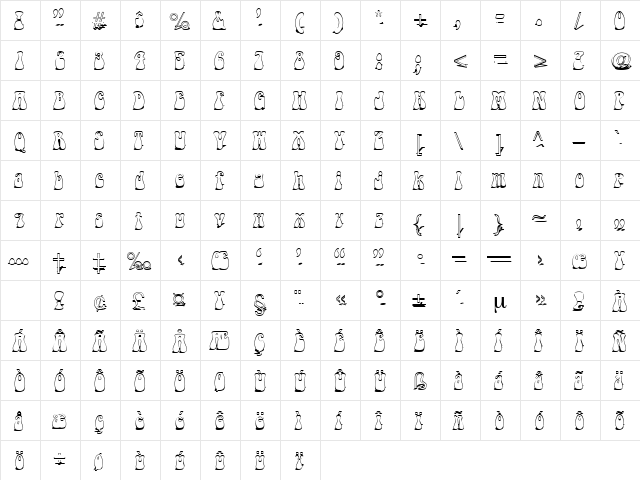
BalloonShadow Regular
Design Context for BalloonShadow Typeface
BalloonShadow brings ornamental detail and strong personality to headlines and identities, where visual impact matters more than quiet functionality.
Font Pairing: Pair with a clean neutral sans-serif for body copy to let BalloonShadow's character lead without overwhelming the composition.
Pro Tip: Use BalloonShadow exclusively at display sizes — it was designed to be seen, not read at length. Let a neutral companion handle body copy.